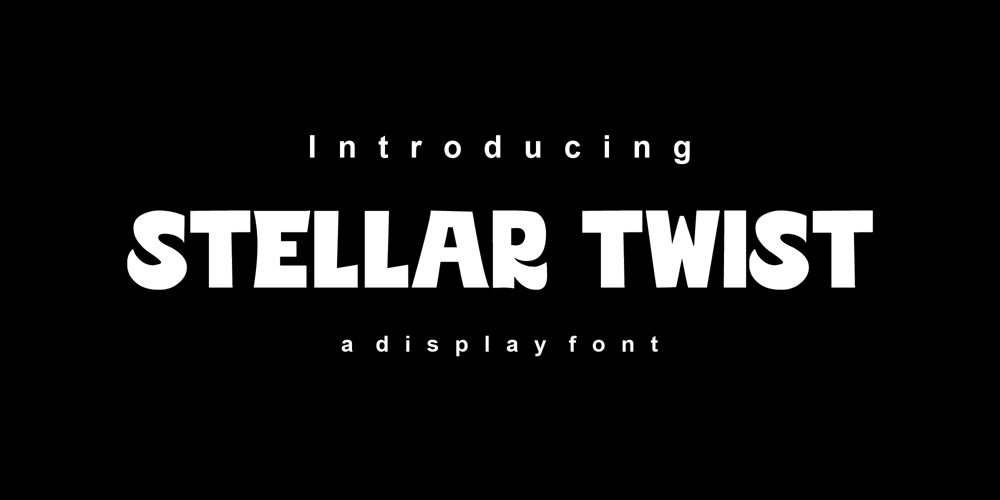
Stellar Twist
Stellar Twist font
Stellar Twist Font Family was designed by Yoga Dwi Cahyono and published by Pitvlas Type. Stellar Twist contains 2 styles and family package options. The typeface “Stellar Twist” is a bold and modern display font characterized by its playful and dynamic letterforms. Its unique curves and creative twists make it stand out, adding a sense of fun and energy to any design. This font is ideal for use in branding, posters, headlines, or any project that requires a strong and eye-catching visual impact. Its versatility and contemporary style make it suitable for both digital and print media, enhancing the overall design with a distinctive and engaging appearance.